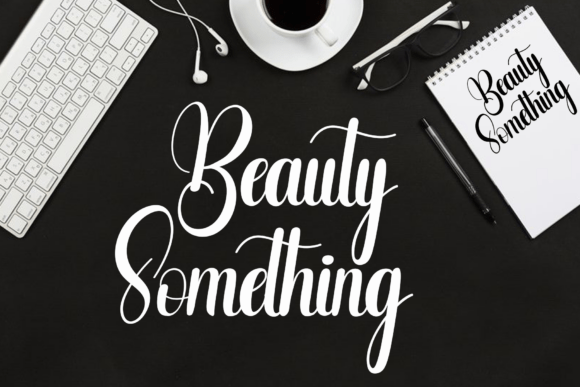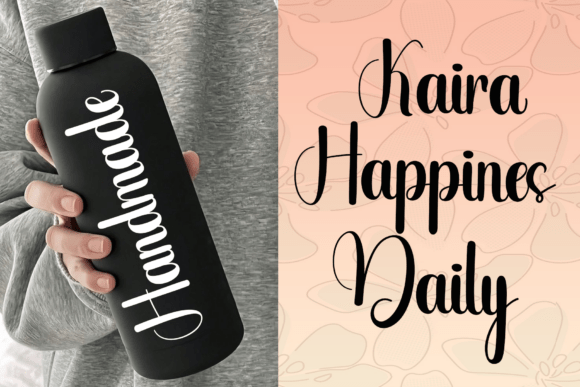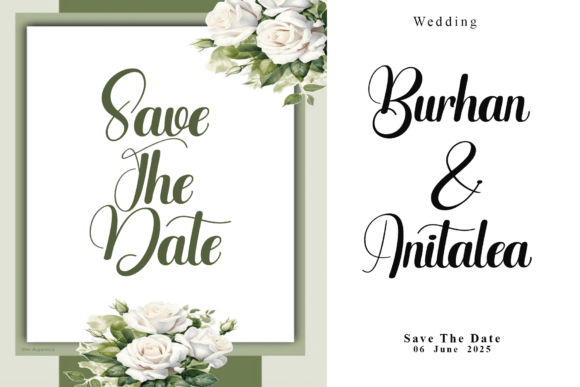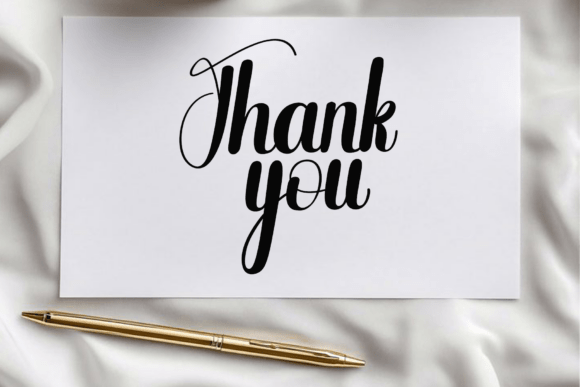
The Magic of Autumn Sealight: A Stylish Handwritten Font
Have you ever been in the middle of a design project, and suddenly, you’re stuck on finding the perfect font? I certainly have! It was a few months ago when I was working on a branding project for a cozy coffee shop. My client wanted a font that was both elegant and approachable, but I just couldn’t seem to find the right fit. That’s when I stumbled upon Autumn Sealight, a beautiful handwritten font that instantly captured the essence of the brand.
A Personal Review: What I Love About Autumn Sealight
Autumn Sealight is a stylish handwritten font with a contemporary atmosphere and impeccable form, inspired by timeless classic calligraphy. Here’s what I love about it:
• ✨ Balanced and varied: The font has a perfect balance of thick and thin lines, making it easy to read and visually appealing.
• ✅ Elegant and sophisticated: Autumn Sealight has a touch of luxury and sophistication, making it perfect for high-end branding projects.
• 💫 Contemporary feel: Despite being inspired by classic calligraphy, the font has a modern twist that makes it perfect for contemporary designs.
While Autumn Sealight is an amazing font, there are a few things to keep in mind:
• 🤔 Limited use in small sizes: Due to its elegant and cursive nature, Autumn Sealight may not be the best choice for small font sizes or body text.
• ⚠️ Requires attention to kerning: As with any handwritten font, kerning can be a bit tricky, and some manual adjustments may be needed to achieve optimal results.
While the actual designer behind Autumn Sealight remains a mystery, it’s clear that they drew inspiration from timeless classic calligraphy. The font’s elegant lines and balanced rhythm evoke a sense of nostalgia, while its modern twist keeps it fresh and contemporary.
Q: Is Autumn Sealight suitable for body text? A: While Autumn Sealight is beautiful, it’s best suited for headings and titles due to its elegant and cursive nature.
Q: Does Autumn Sealight support OpenType features? A: Yes, Autumn Sealight supports OpenType features like ligatures and stylistic alternates, adding more creativity to your designs.
Q: Is Autumn Sealight available in different weights or styles? A: Autumn Sealight is available in a single weight, but its elegant design and range of OpenType features make it versatile enough for various design applications.